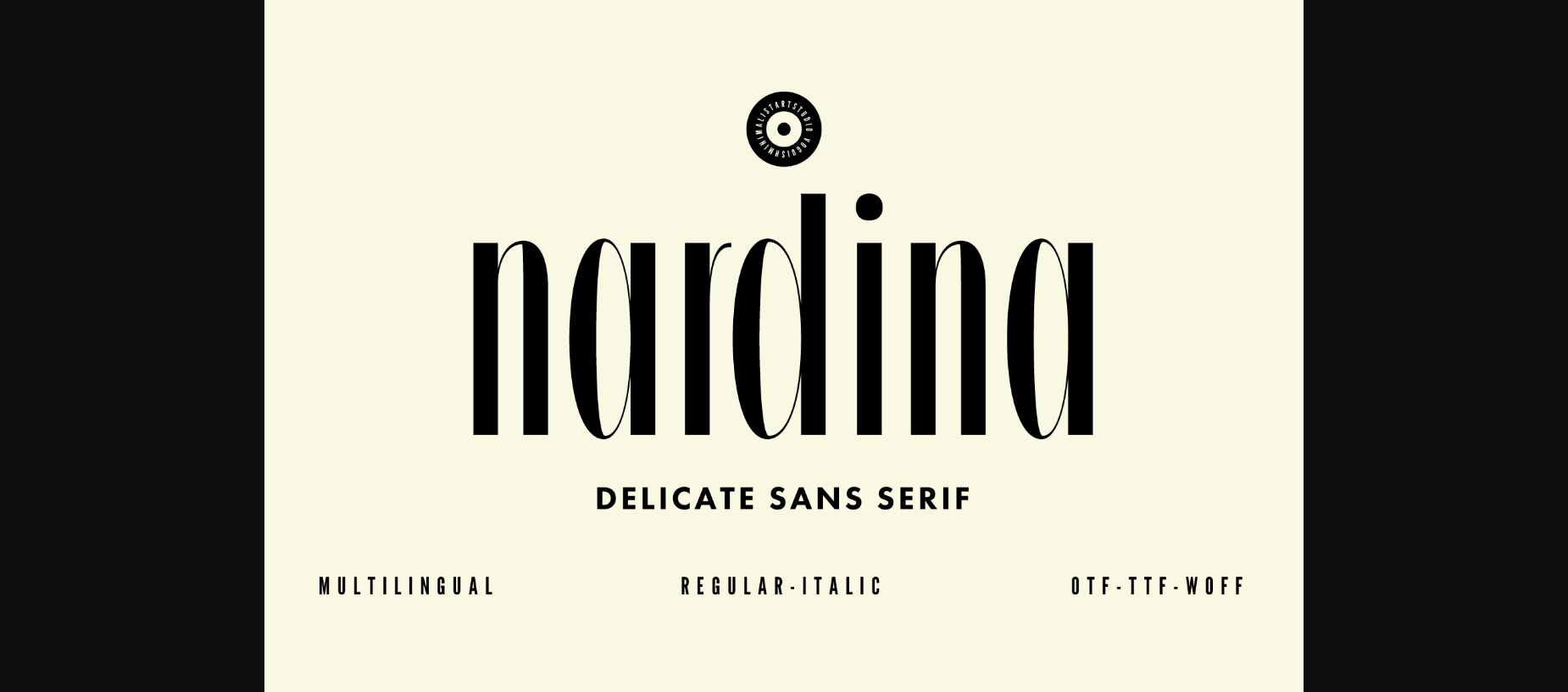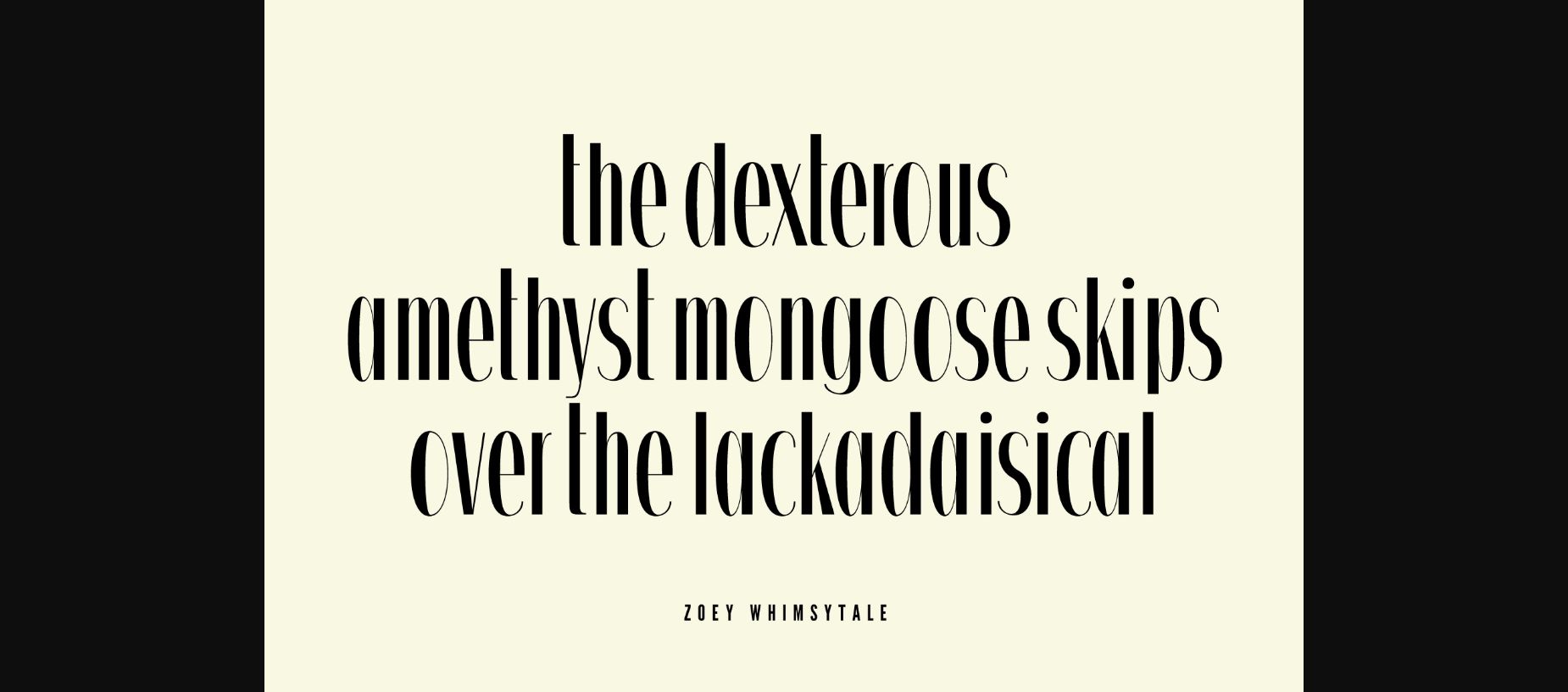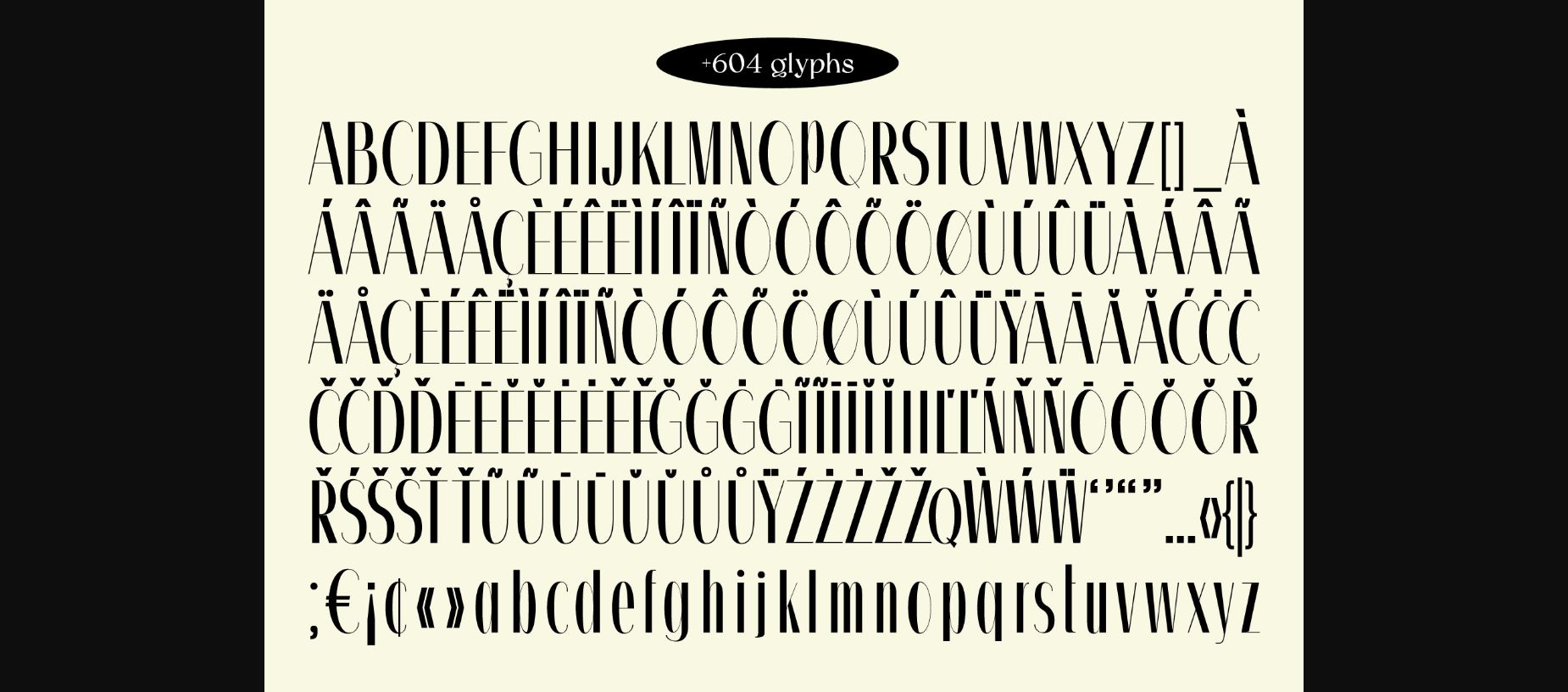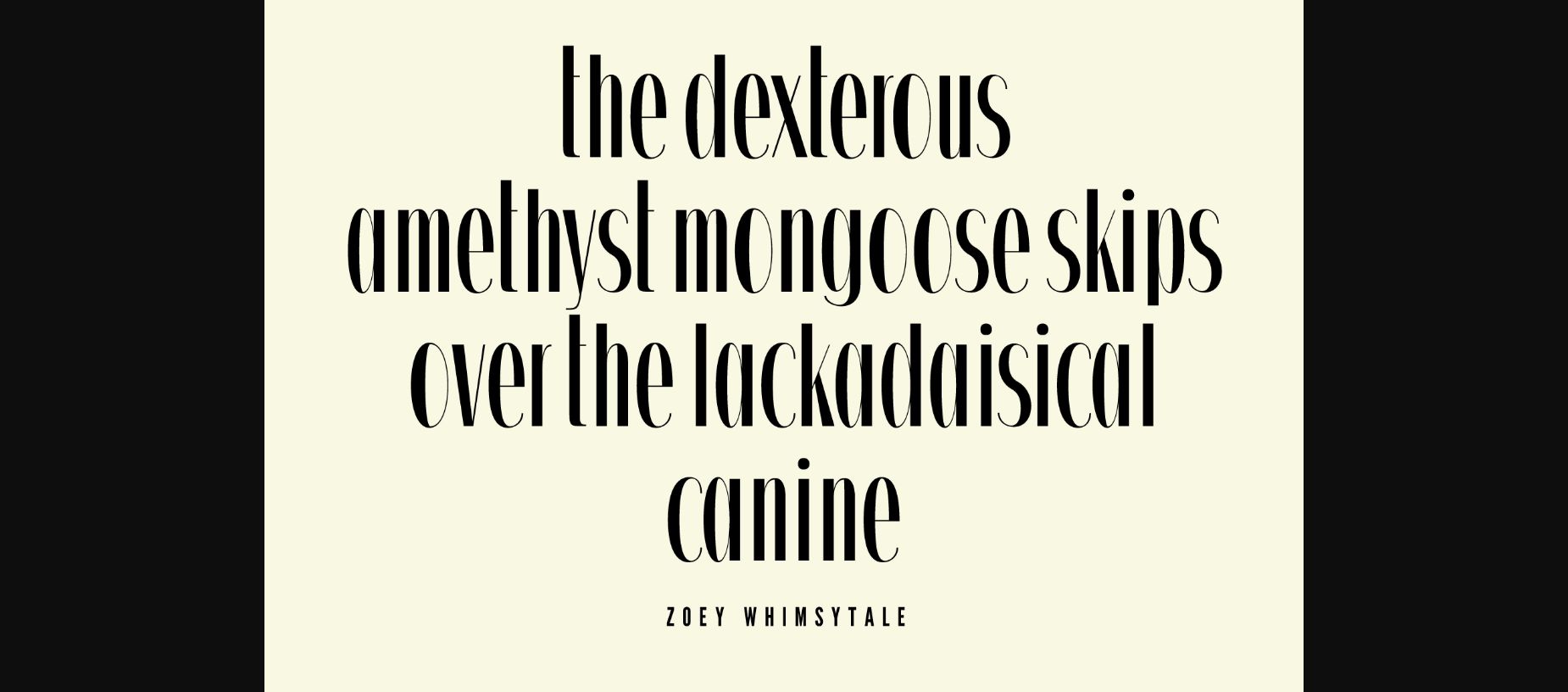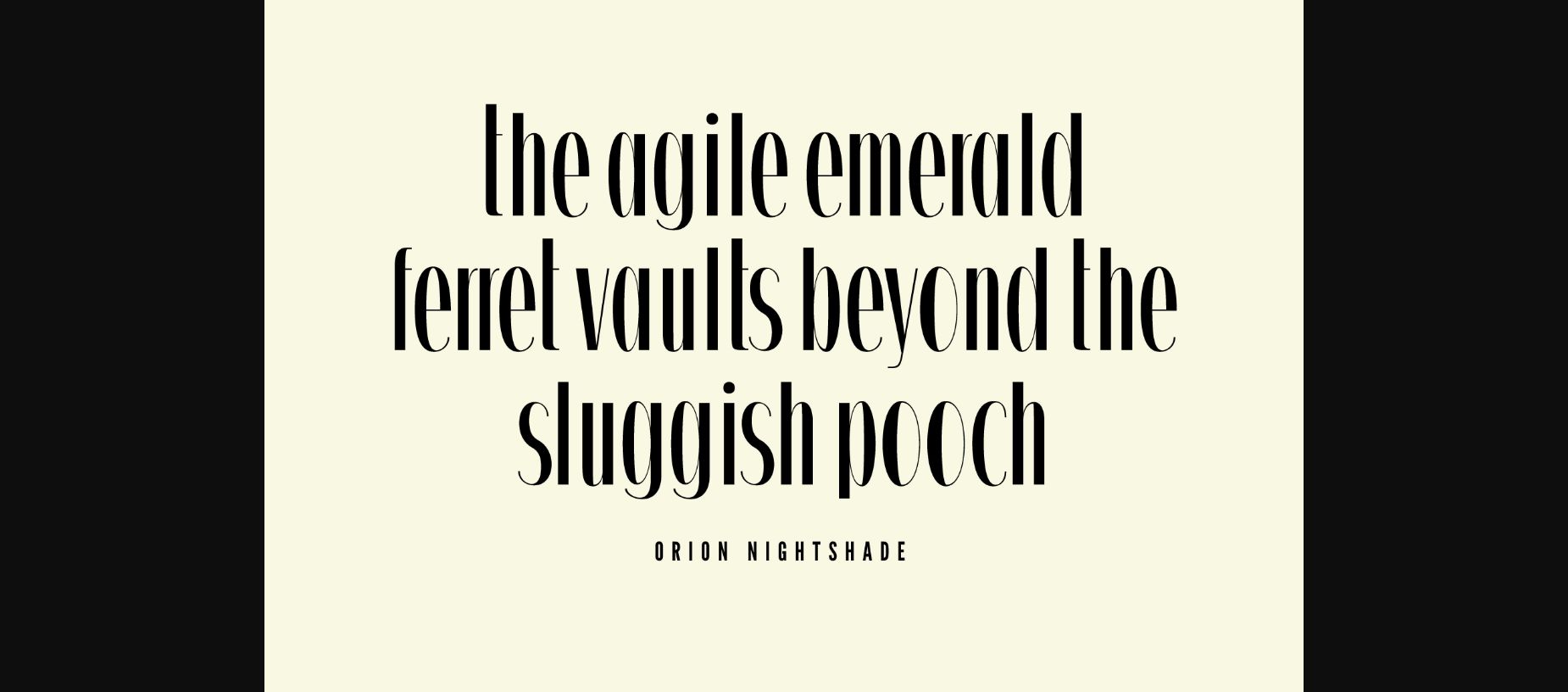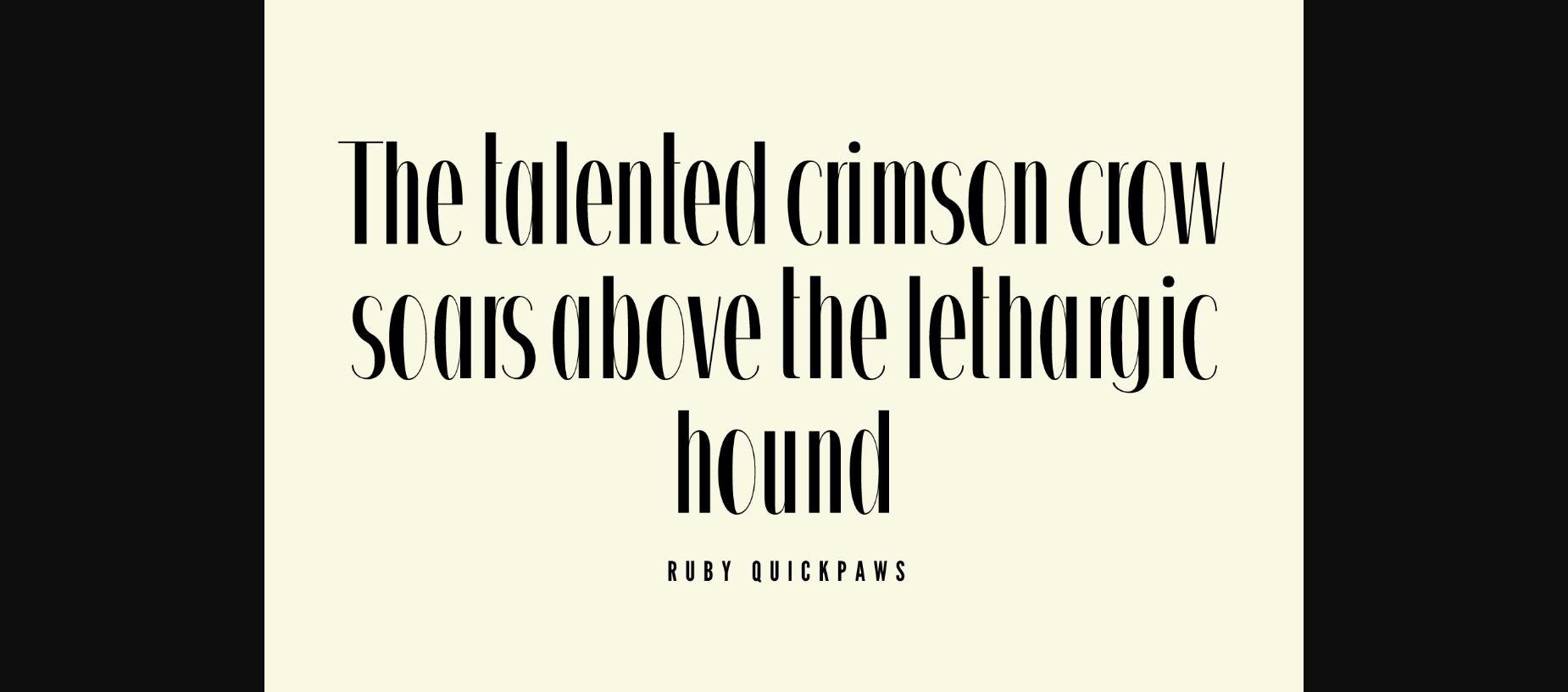
Nardina Font
About Nardina Font
Elevate your designs with the exquisite charm of Nardina, a captivating sans serif typeface meticulously crafted for the modern aesthetic. Nardina effortlessly strikes the perfect balance between minimalist sophistication and contemporary chic, making it the ideal choice for projects that demand a touch of refinement.